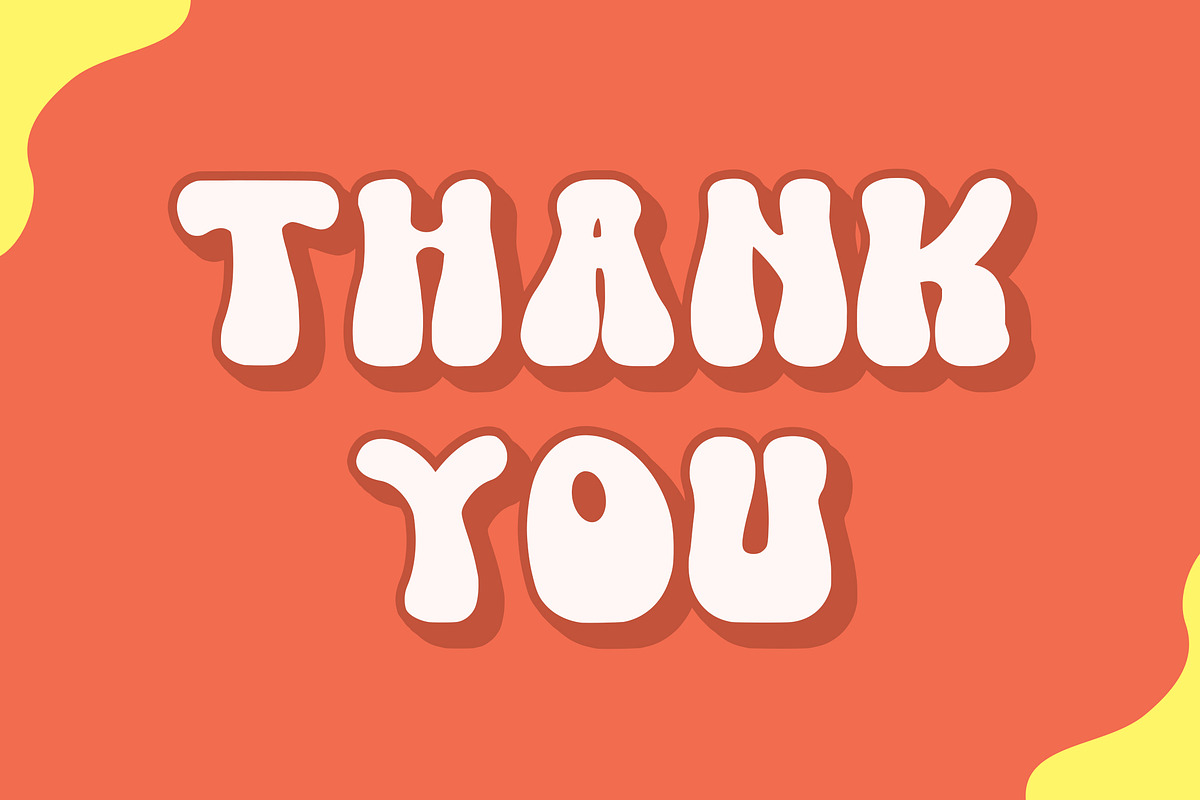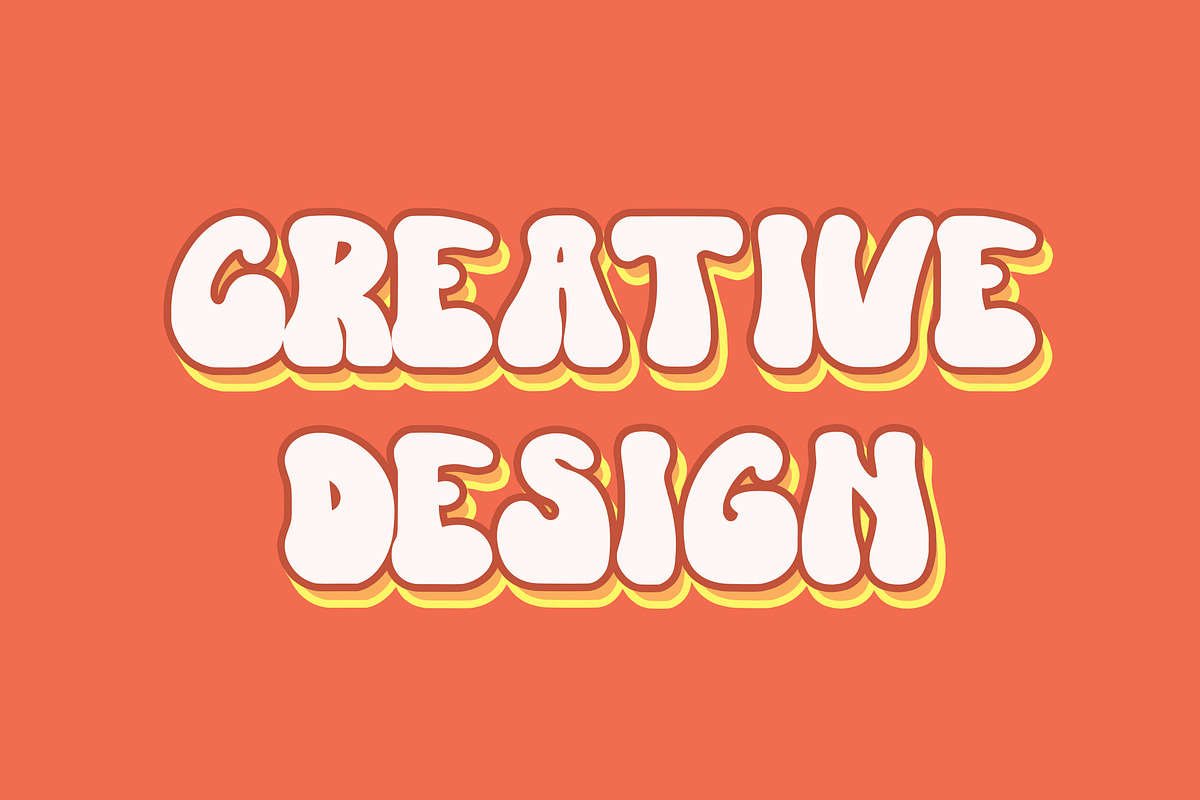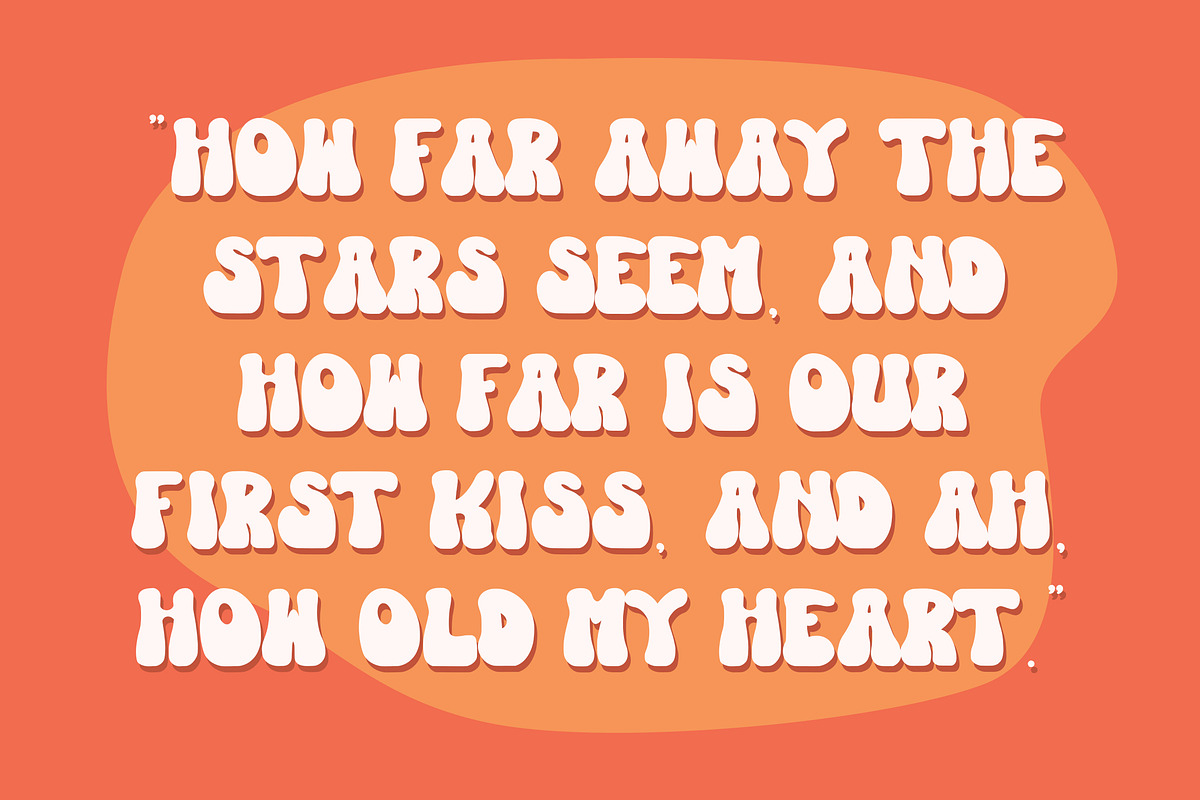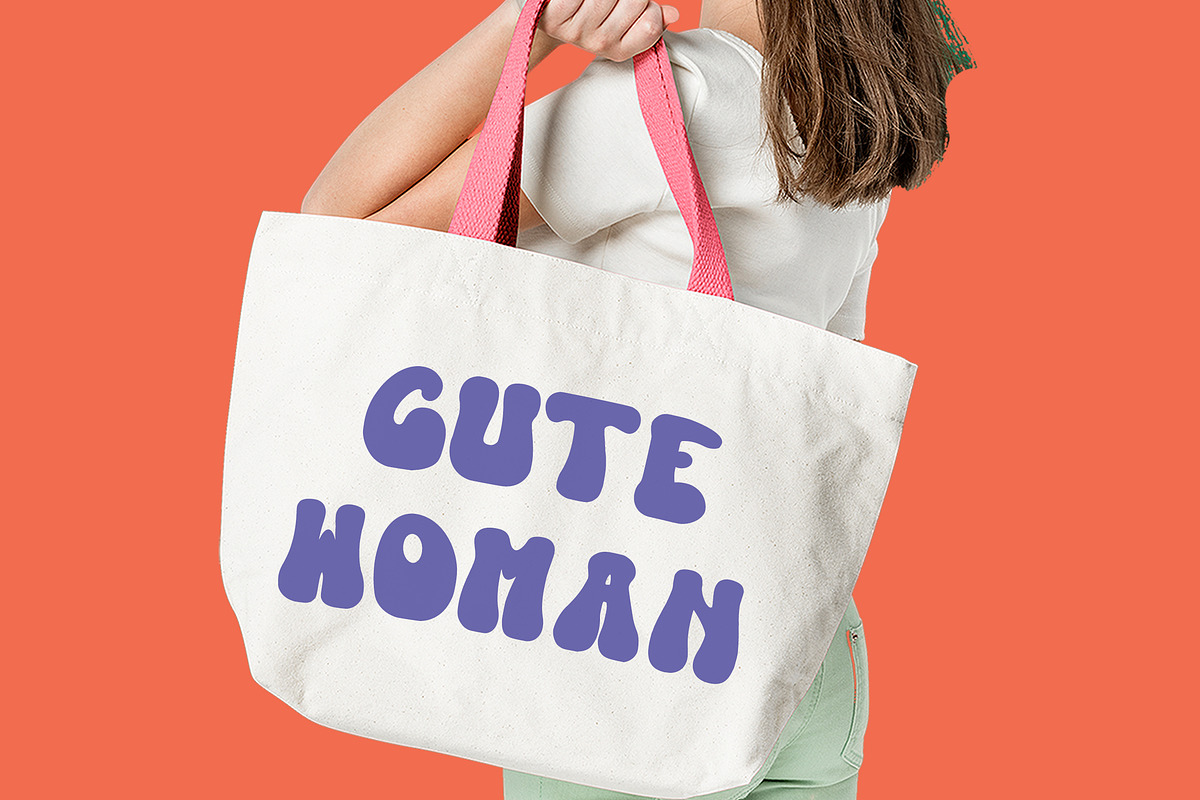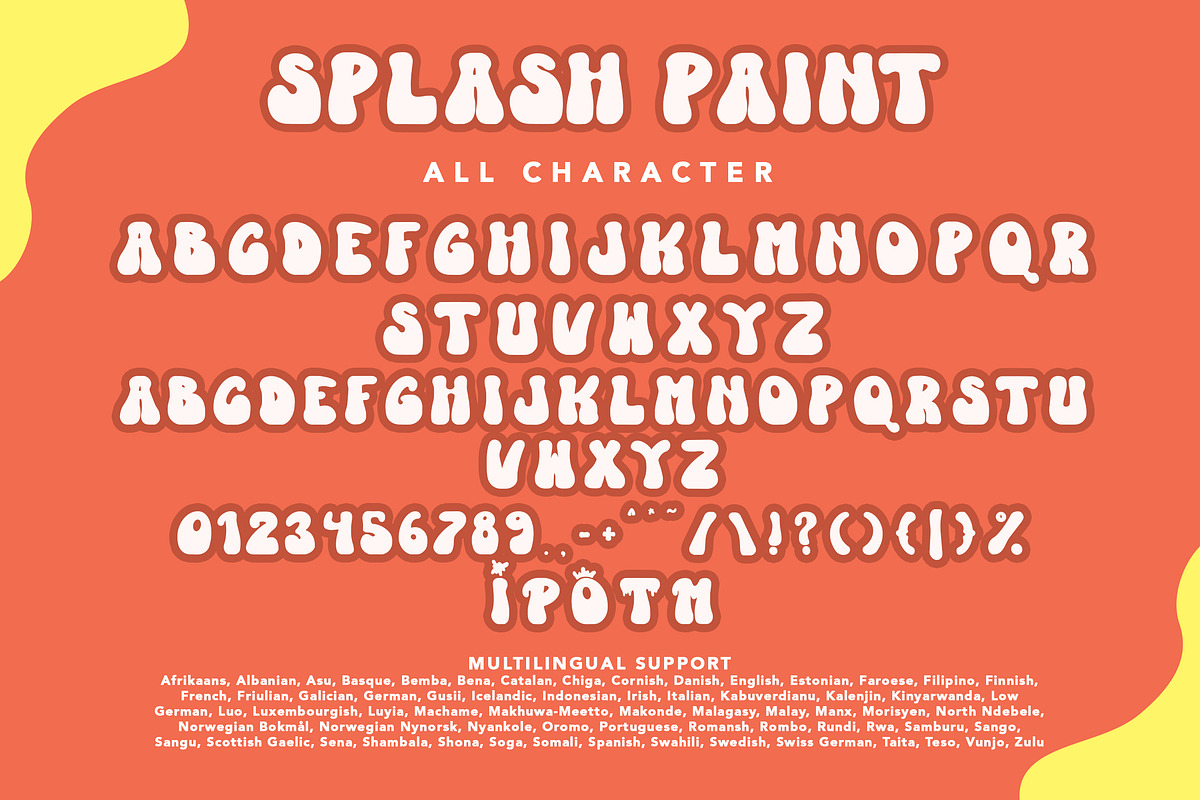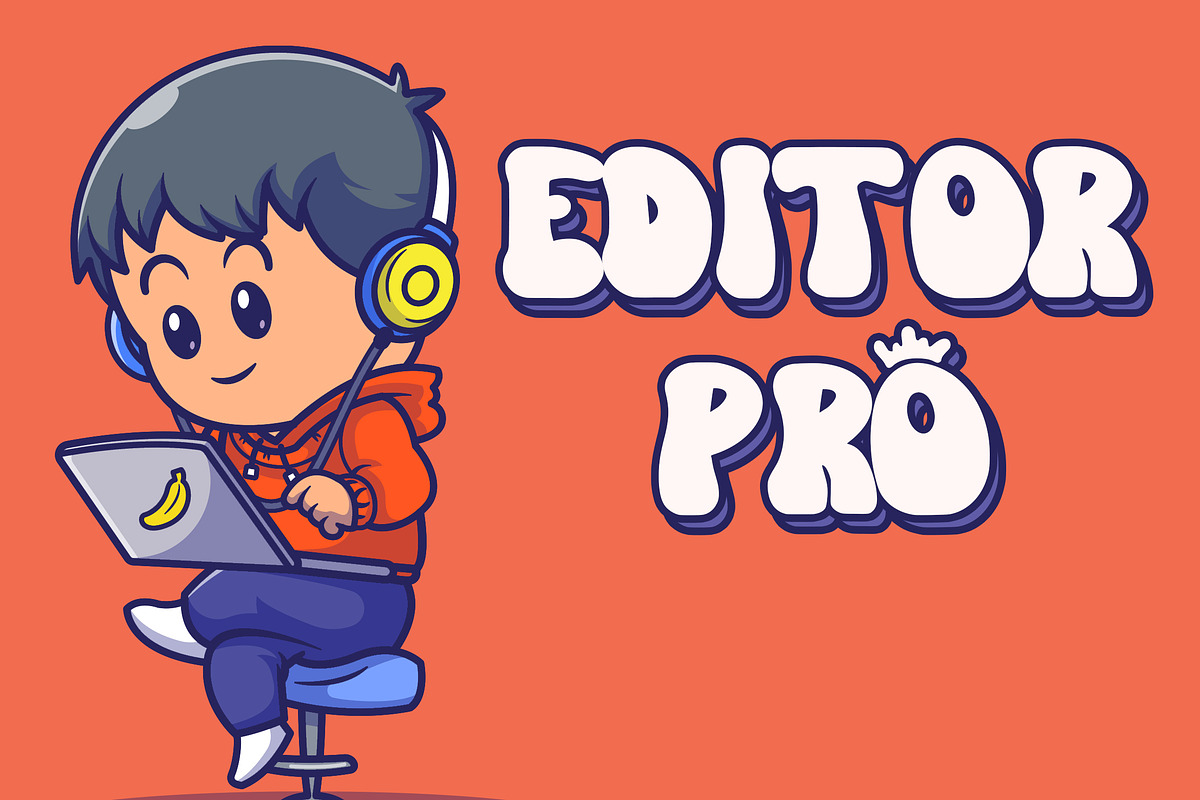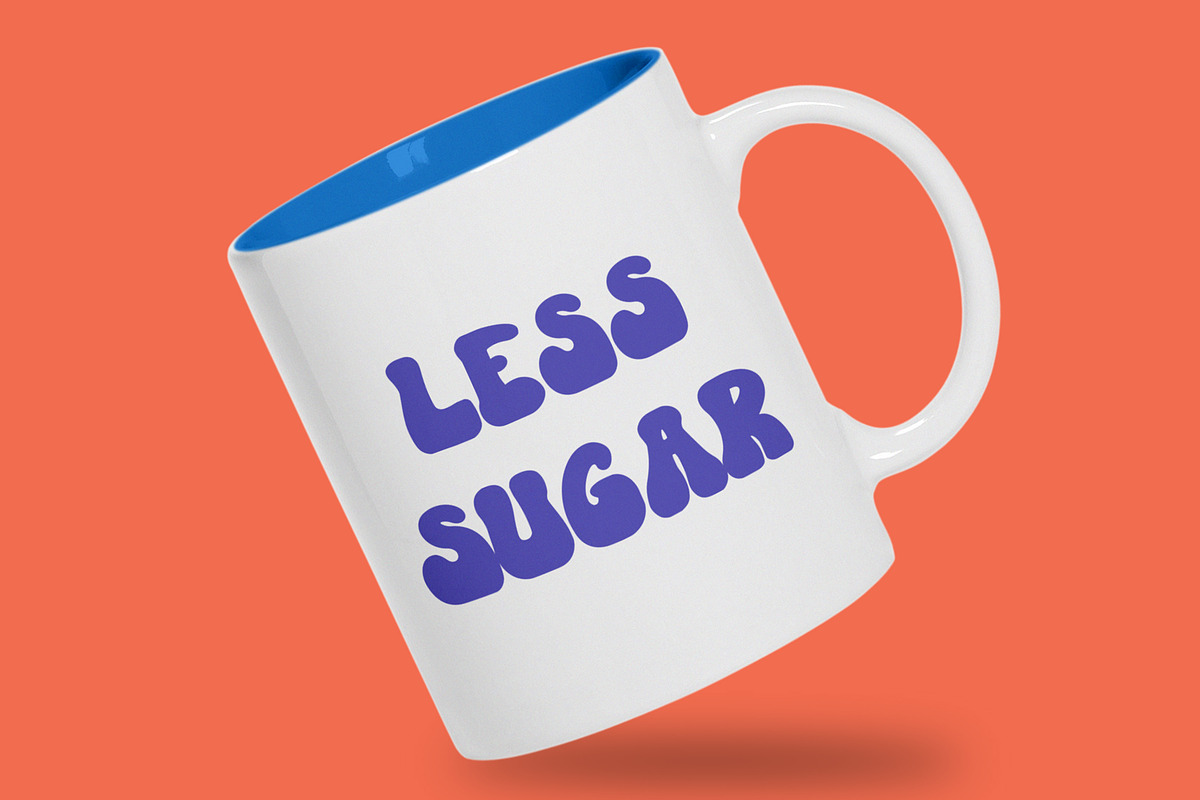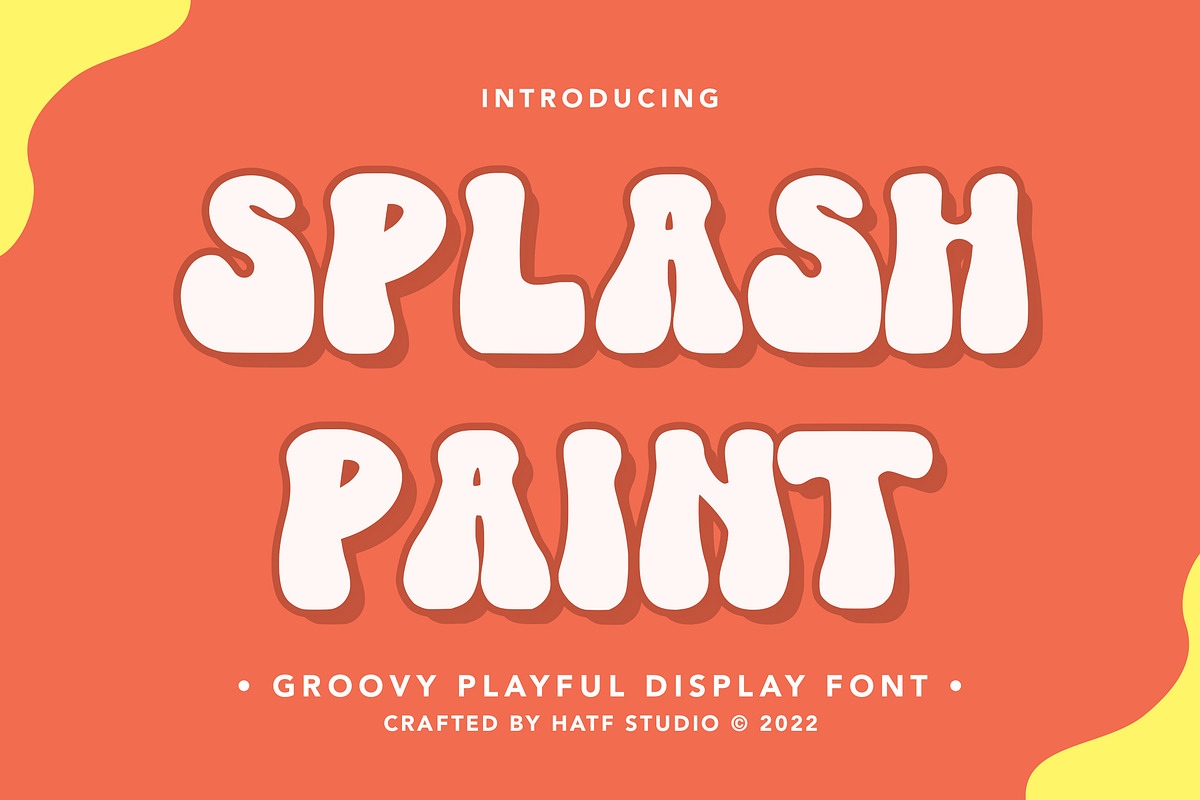
Splash Paint
Transport yourself to a bygone era with Splash Paint Groovy Retro Display Font, a typographic journey back to the vibrant and funky styles of the past. This font effortlessly channels the spirit of the ’60s and ’70s, embracing the groovy vibes and free-spirited energy of that iconic era.
With its bold curves, playful lines, and psychedelic details, this retro display font captures the essence of a time when creativity knew no bounds. Each letter is a dance of nostalgia, bringing to life the carefree and expressive aesthetic of retro design.
Perfect for projects that crave a touch of vintage flair, Splash Paint Groovy Retro Display Font injects a sense of coolness and nostalgia into logos, posters, and headlines. Its dynamic and energetic presence transforms any design into a visual journey through the groovy days of the past.
Unleash the power of retro chic with this font, where each character becomes a piece of art, celebrating the timeless appeal of a groovy era that continues to inspire creativity and style.